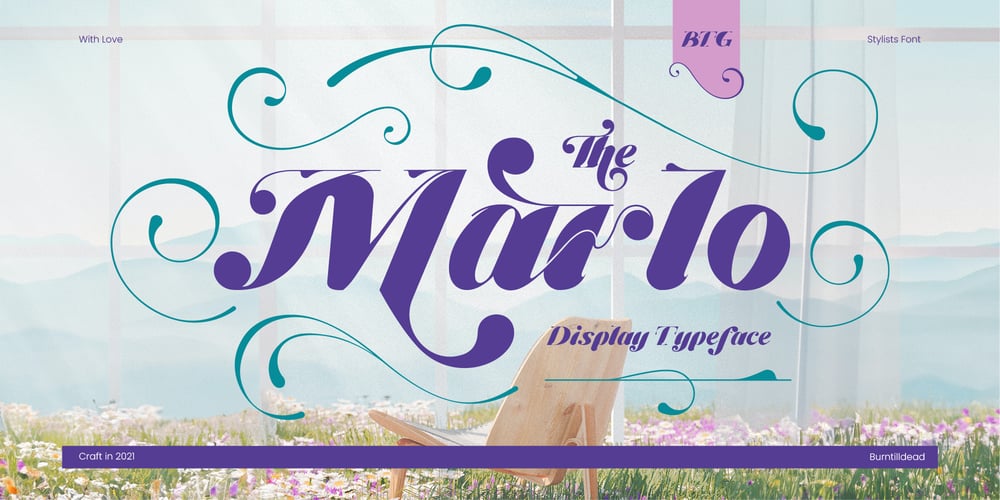
Marlo Font Family was designed by Eric Kurniawan and published by Burntilldead. Marlo contains 1 styles and family package options. Say hi to “Marlo” a display typeface with curved lines that look fun and fresh but still aesthetic.Perfect and suitable for branding, headline, logotype, sticker, editorial design, and etc.Features: A-Z Character Set a-z Characters set Numerals & Punctuations (OpenType Standard) ligatures Alternate Characters